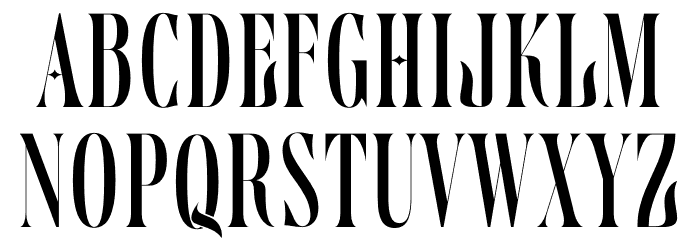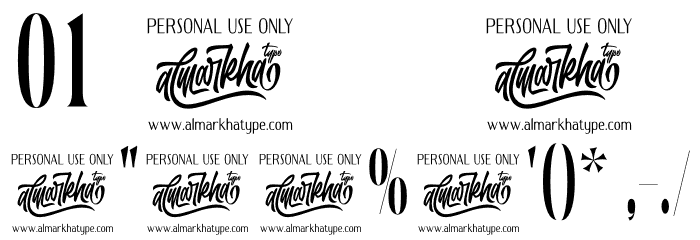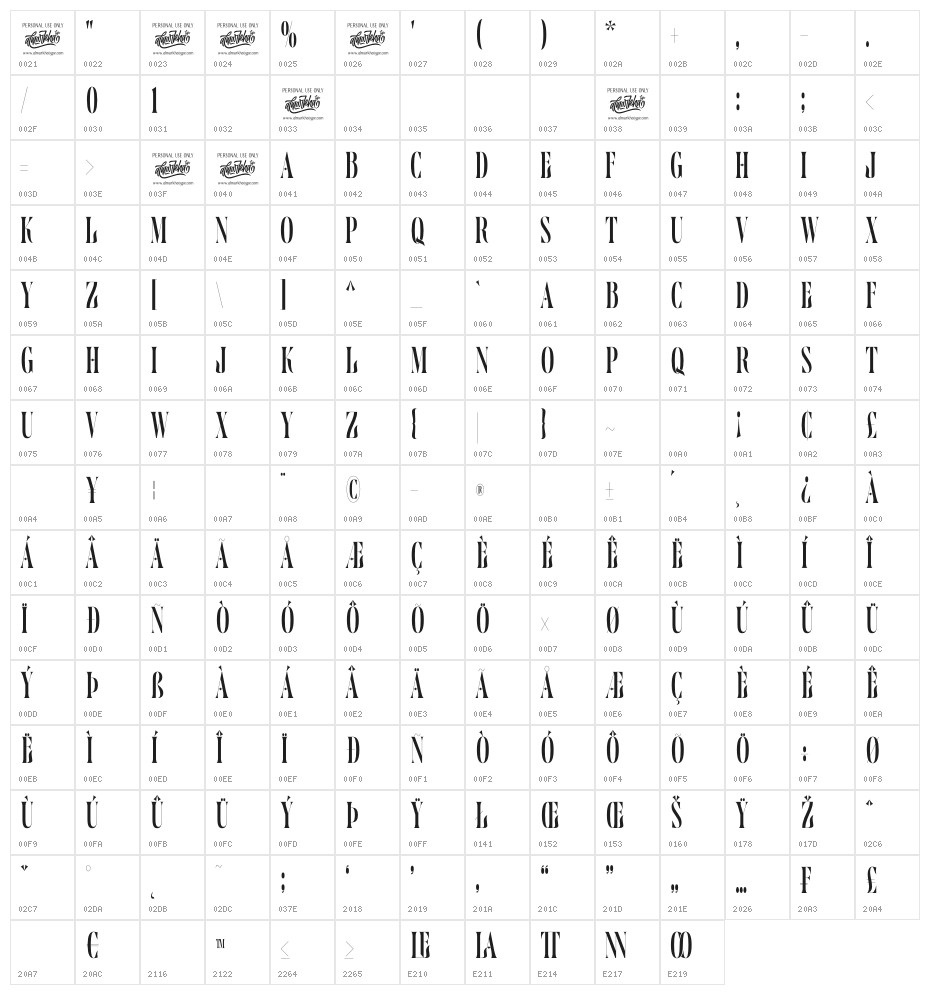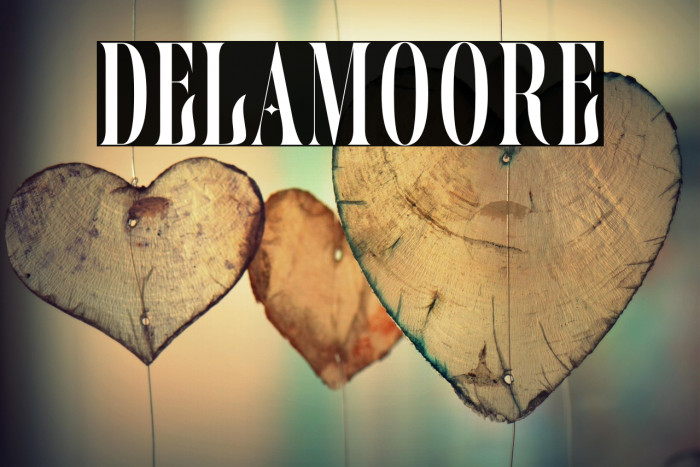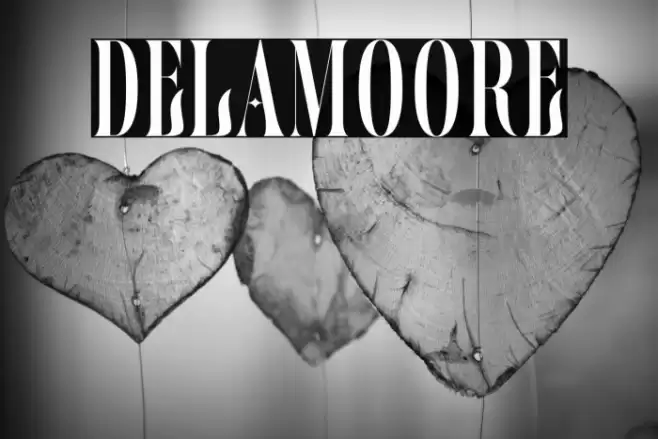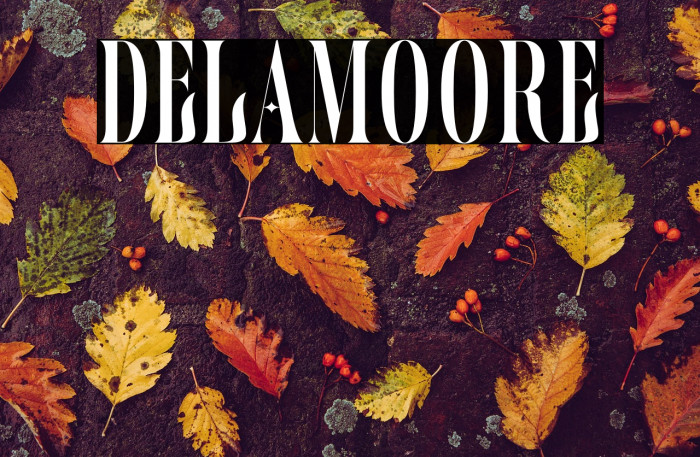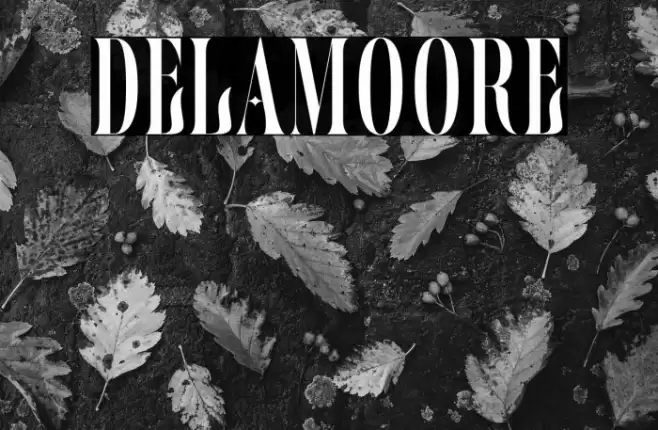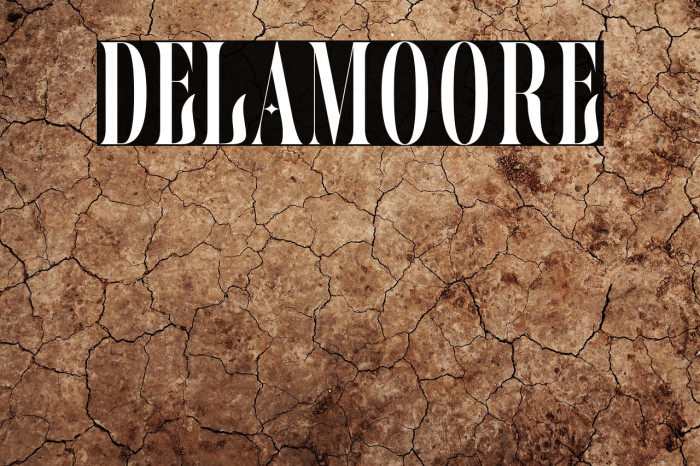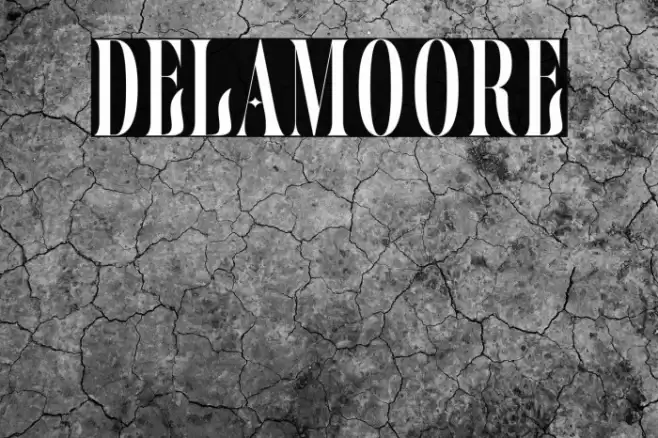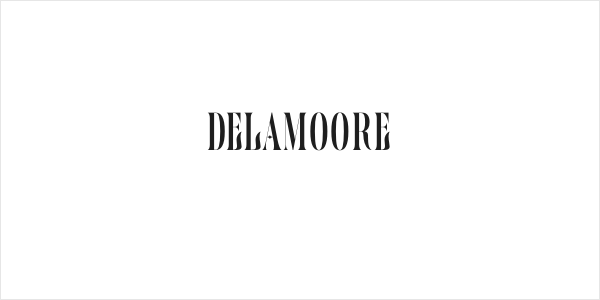
Delamoore Font
This font features a striking and elegant design with high contrast between thick and thin strokes, creating a dramatic and stylish appearance. The uppercase letters are tall and slender, with sharp serifs that add a touch of sophistication. The overall look is both modern and classic, making it versatile for various design needs. The font's unique character is emphasized by its decorative elements, which are particularly evident in the uppercase letters. The numbers and special characters maintain the same high contrast and elegant style, ensuring consistency across all text elements.
A high-contrast, elegant serif font with dramatic strokes and sharp serifs.
- Proposed Projects: Ideal for luxury branding, editorial design, fashion magazines, and elegant invitations.
- Overall Style: Elegant, Classic
- Use Case: Headlines, Logos, Branding